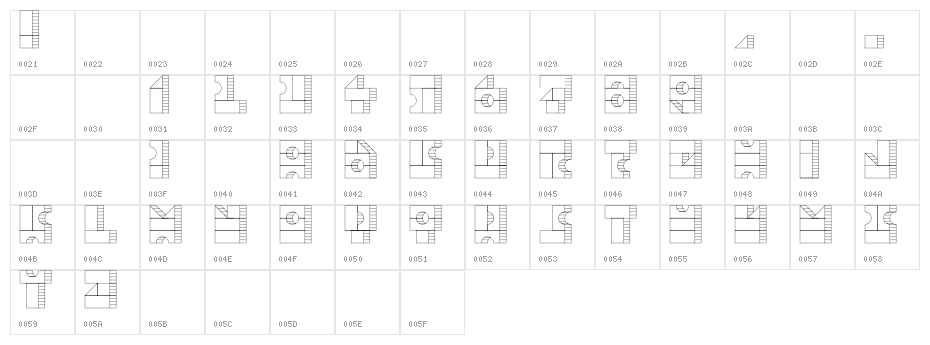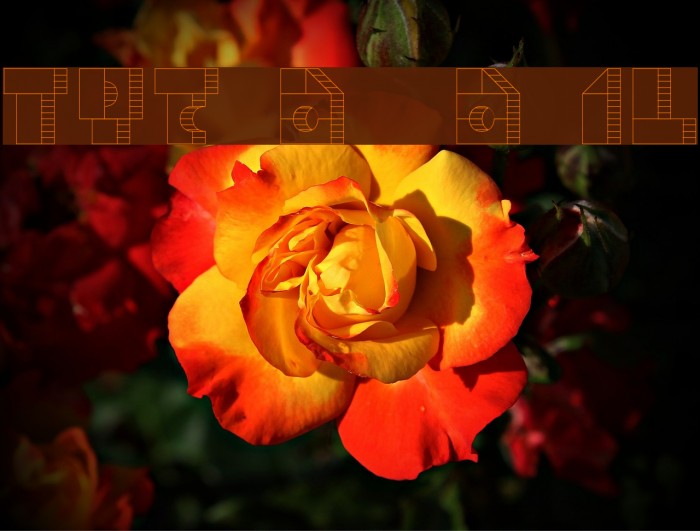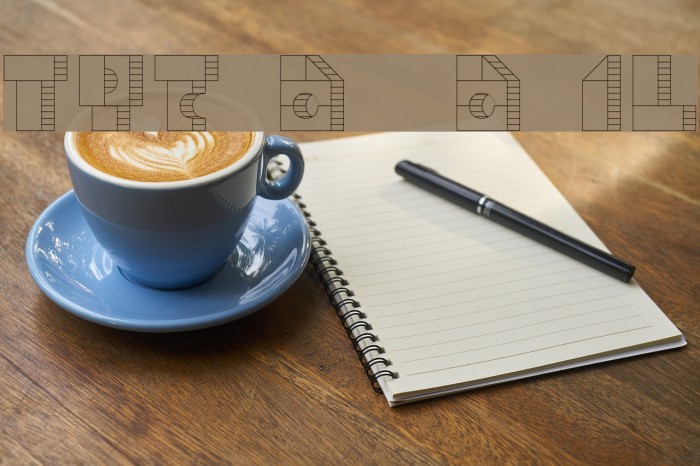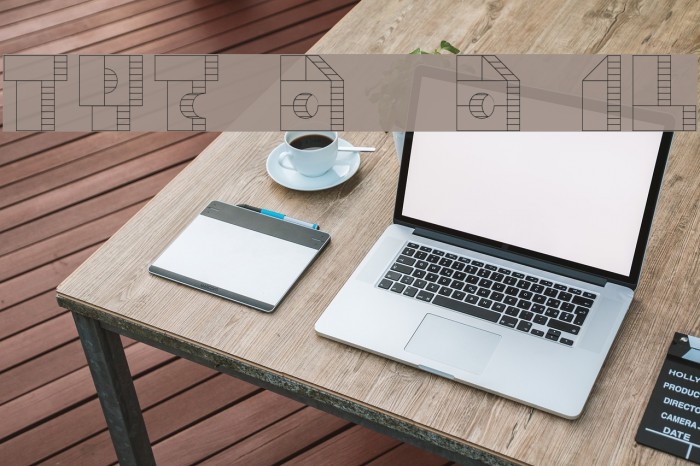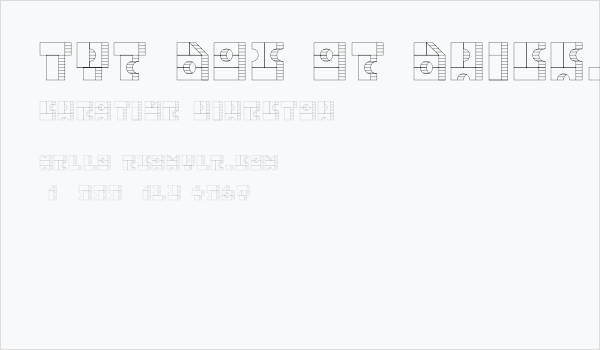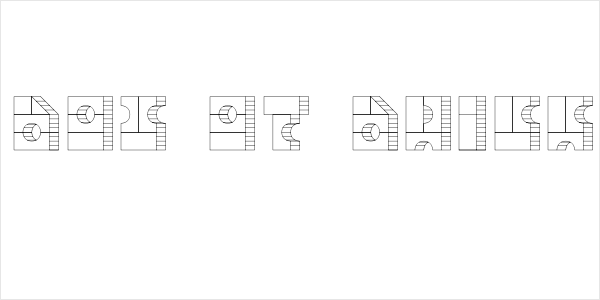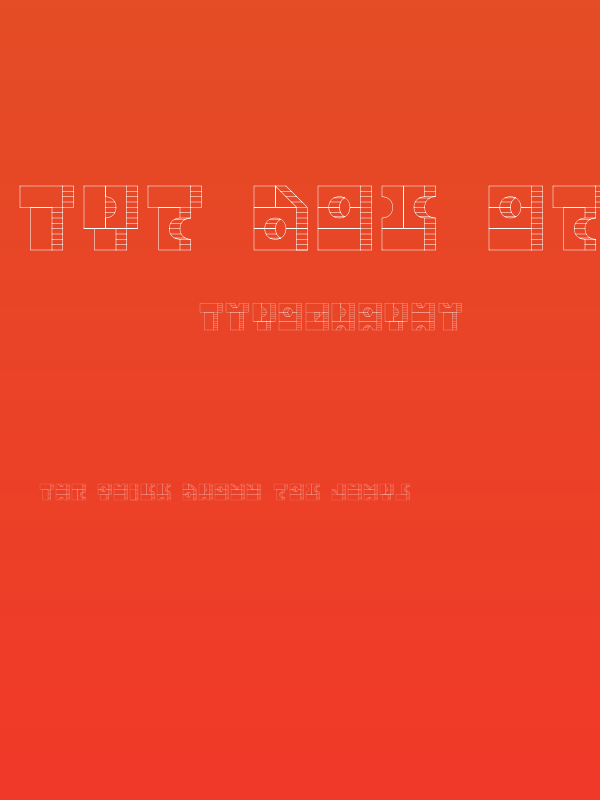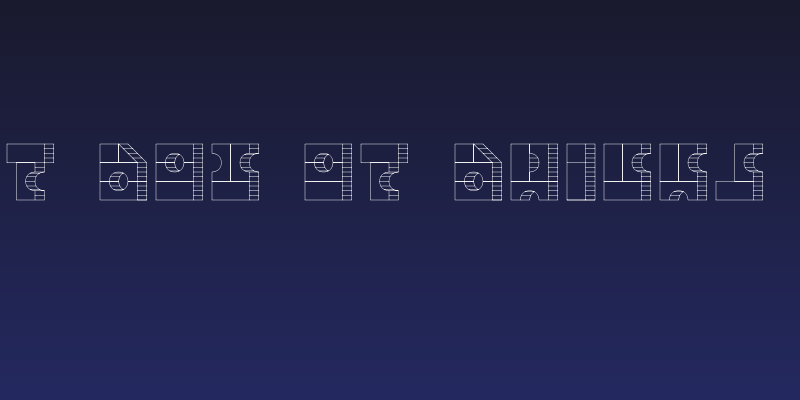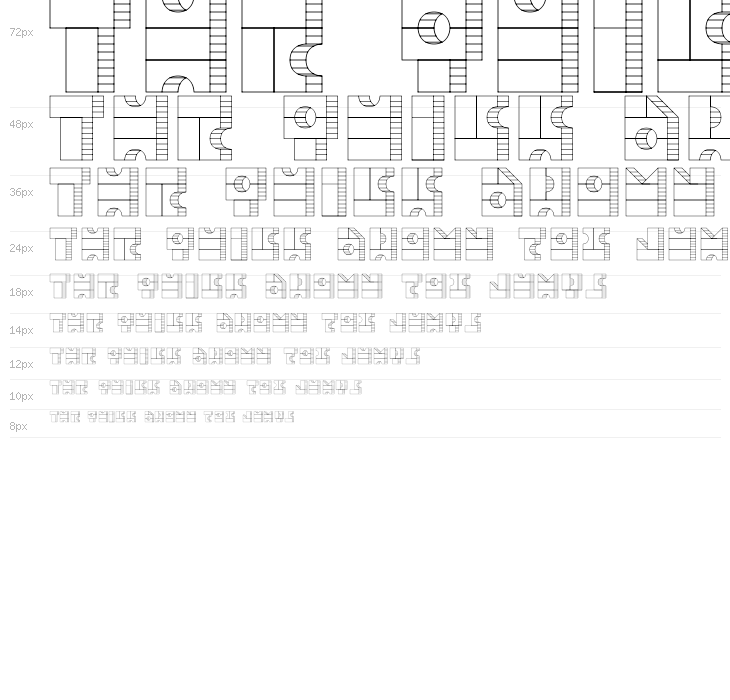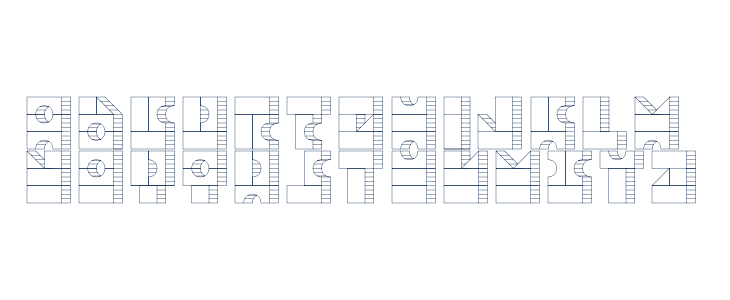
TPF Box of Bricks 1L Font
This font features a unique, geometric design reminiscent of building blocks or bricks. Each character is constructed with a combination of solid and outlined segments, creating a visually striking pattern. The letters and numbers have a modular, block-like appearance with horizontal and vertical lines adding texture and depth. The overall look is playful yet structured, making it ideal for creative and modern design projects. The font's distinct style captures attention and adds a sense of fun and innovation to any text.
| Proposed Projects | Ideal for children's books, educational materials, toy packaging, and creative branding projects. |